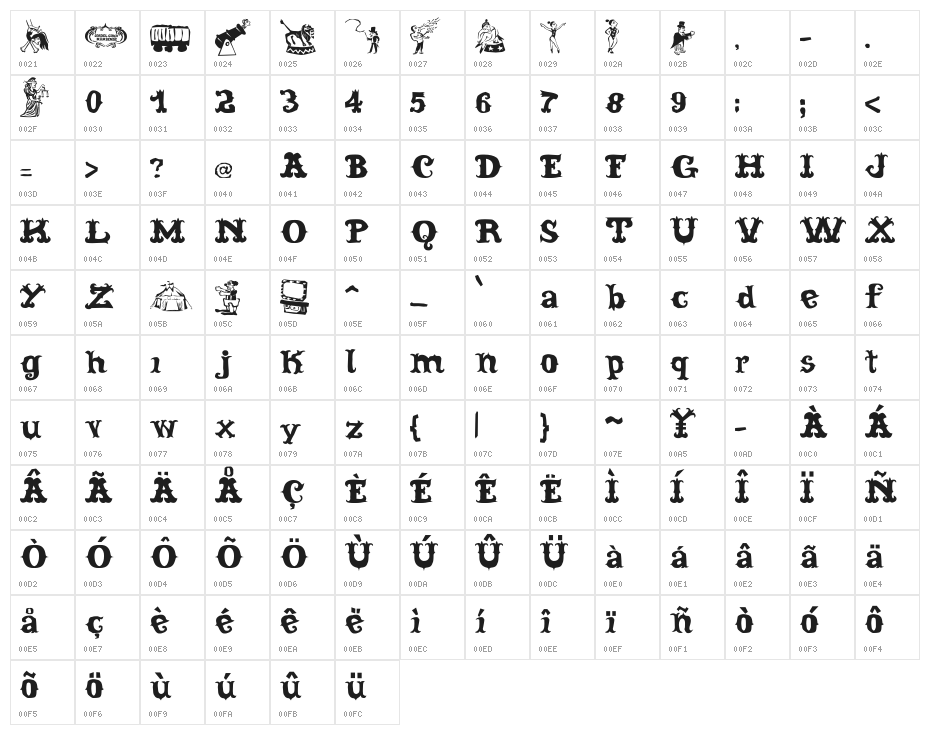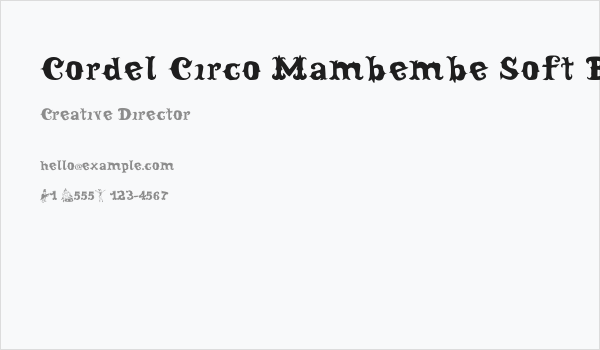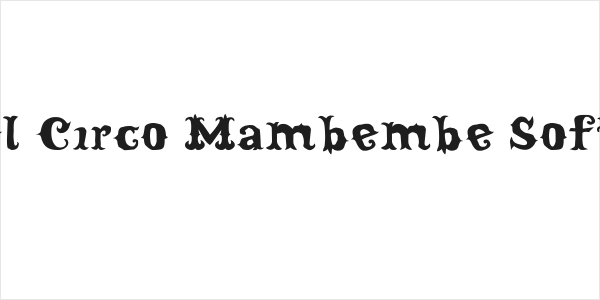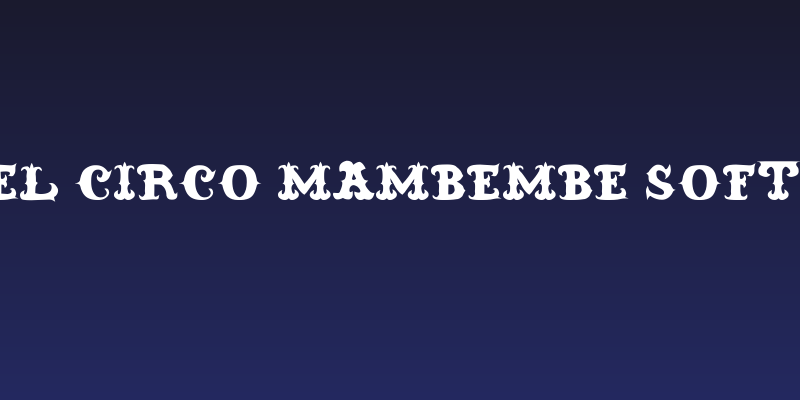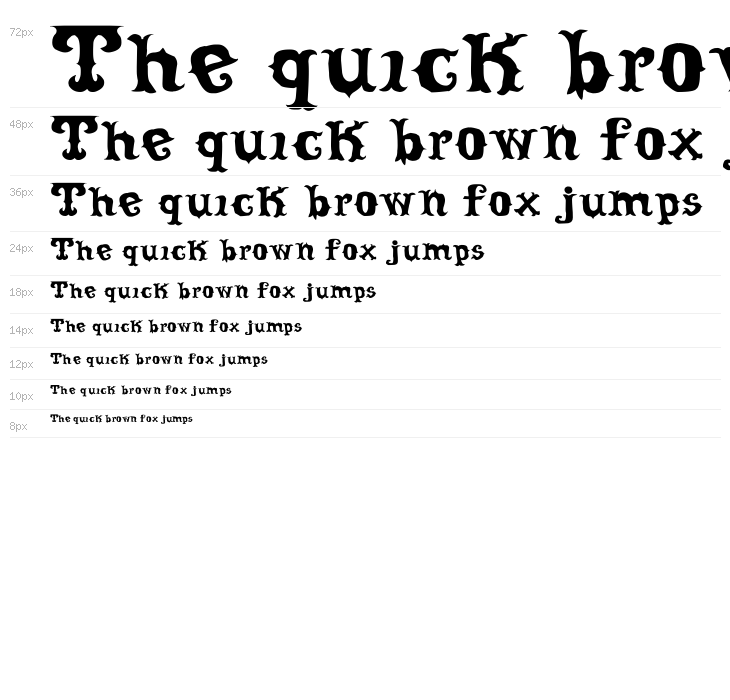
Cordel Circo Mambembe Soft Bold Font
Cordel Circo Mambembe Soft Bold Description
This font features a bold and playful design with a whimsical, circus-inspired aesthetic. The characters are highly decorative, with exaggerated serifs and unique flourishes that give each letter a distinct personality. The uppercase and lowercase letters maintain a consistent style, while the numbers and special characters continue the theme with bold, dynamic shapes. The overall appearance is reminiscent of vintage circus posters, making it ideal for projects that require a touch of nostalgia and fun.
Overall StyleVintage, Decorative
Proposed ProjectsIdeal for circus-themed posters, playful branding, children's book covers, and vintage-style advertisements.